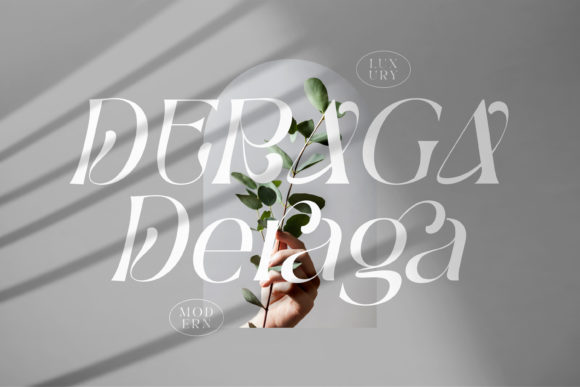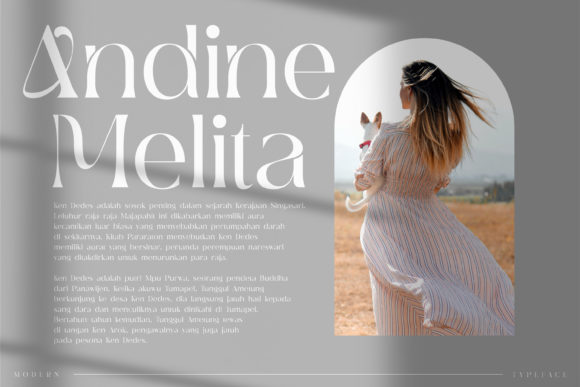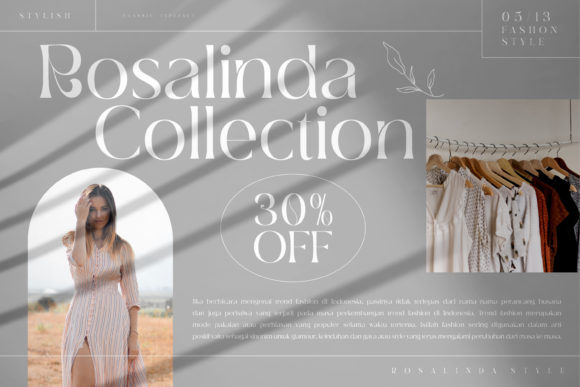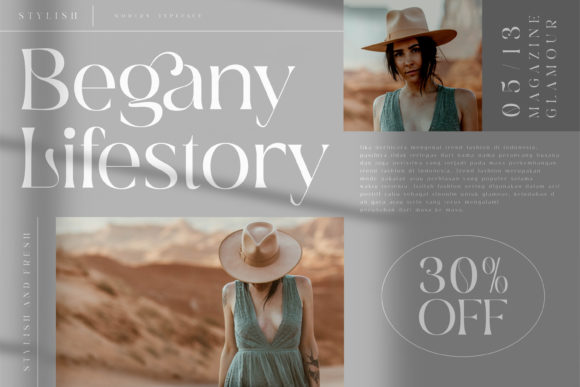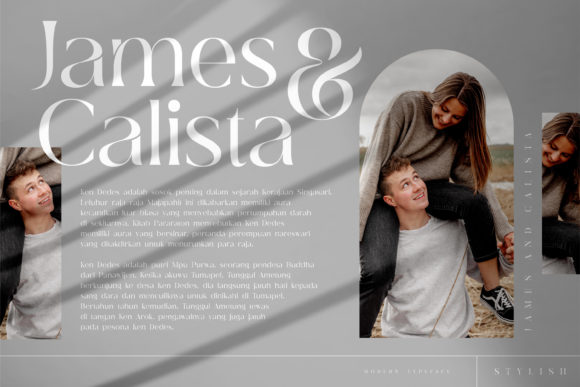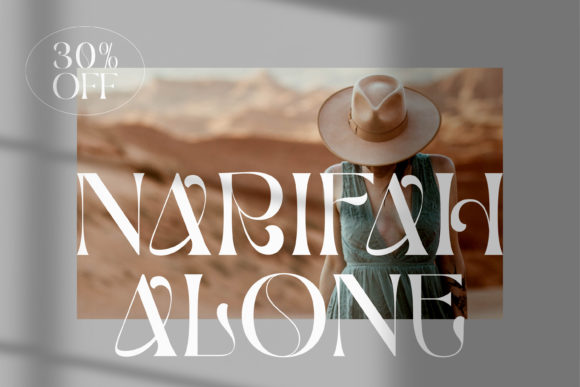
Discover the Elegance of Deraga Font: Elevate Your Designs with Style
In the world of typography, fonts play a crucial role in conveying messages, expressing emotions, and creating a lasting impression. For designers and crafters, finding the perfect font can be a daunting task. However, if you’re looking for a trendy and stylish serif font that can elevate your designs, look no further than Deraga Font. In this article, we’ll explore the features, benefits, and uses of Deraga Font, and why it’s a must-have for any designer or crafter.
What is Deraga Font?
Deraga Font is a modern serif font that exudes elegance and sophistication. Its unique design makes it stand out from other fonts, and its versatility allows it to be used in a wide range of design projects. Whether you’re creating a logo, brochure, or social media post, Deraga Font is the perfect choice.
One of the standout features of Deraga Font is its PUA (Private Use Area) encoding. This means that you can access all of the glyphs and swashes with ease, giving you complete creative control over your designs. With PUA encoding, you can easily insert special characters, ligatures, and other unique elements that will take your designs to the next level.
Deraga Font is incredibly versatile, making it suitable for a wide range of design projects. Its stylish and modern design makes it perfect for:
• Logos and branding
• Brochures and flyers
• Social media posts and graphics
• Web design and development
• Print-on-demand products
Whether you’re creating a professional design or a personal project, Deraga Font is the perfect choice.
Why Choose Deraga Font?
So, why should you choose Deraga Font for your design projects? Here are just a few reasons:
• Unique and stylish design: Deraga Font has a unique and stylish design that will make your designs stand out from the crowd.
• Ease of use: With PUA encoding, you can easily access all of the glyphs and swashes, making it easy to create stunning designs.
• Versatility: Deraga Font is suitable for a wide range of design projects, making it a great addition to any design library.
• High-quality: Deraga Font is a high-quality font that is designed to deliver exceptional results.
Tips for Using Deraga Font
To get the most out of Deraga Font, here are a few tips:
• Experiment with different sizes and styles: Deraga Font looks great in a variety of sizes and styles, so don’t be afraid to experiment.
• Use it with contrasting colors: Deraga Font looks great with contrasting colors, so try pairing it with a bold color to create a stunning design.
• Mix it with other fonts: Deraga Font can be paired with other fonts to create a unique and interesting design.
In conclusion, Deraga Font is a trendy and stylish serif font that is perfect for designers and crafters. Its unique design, PUA encoding, and versatility make it a great addition to any design library. With its high-quality design and ease of use, Deraga Font is sure to elevate your designs and take them to the next level. So, why wait? Get your hands on Deraga Font today and start creating stunning designs!
• What is Deraga Font?: Deraga Font is a trendy and stylish serif font that is perfect for designers and crafters.
• What is PUA encoding?: PUA encoding is a feature that allows you to access all of the glyphs and swashes with ease.
• What can I use Deraga Font for?: Deraga Font can be used for a wide range of design projects, including logos, brochures, social media posts, and more.